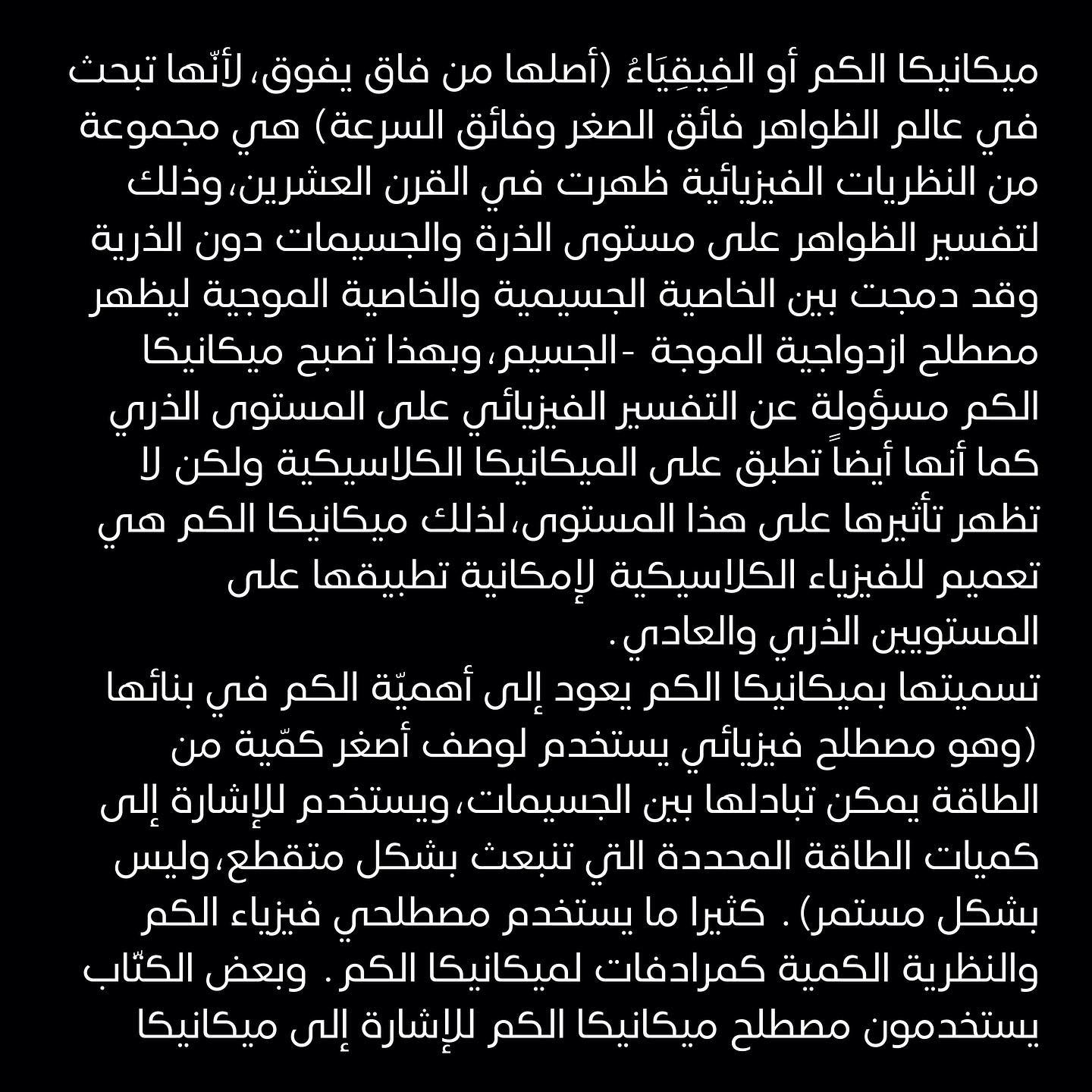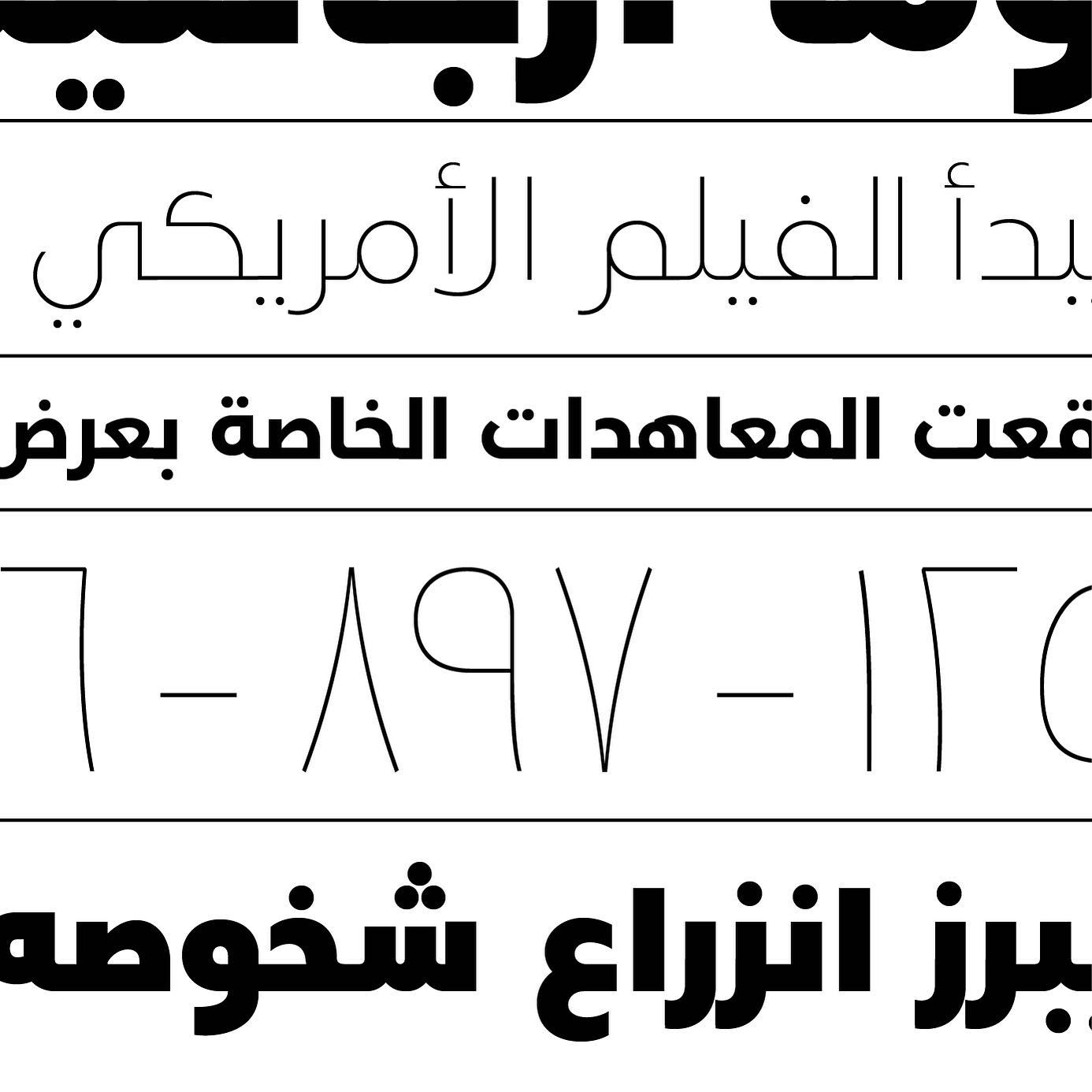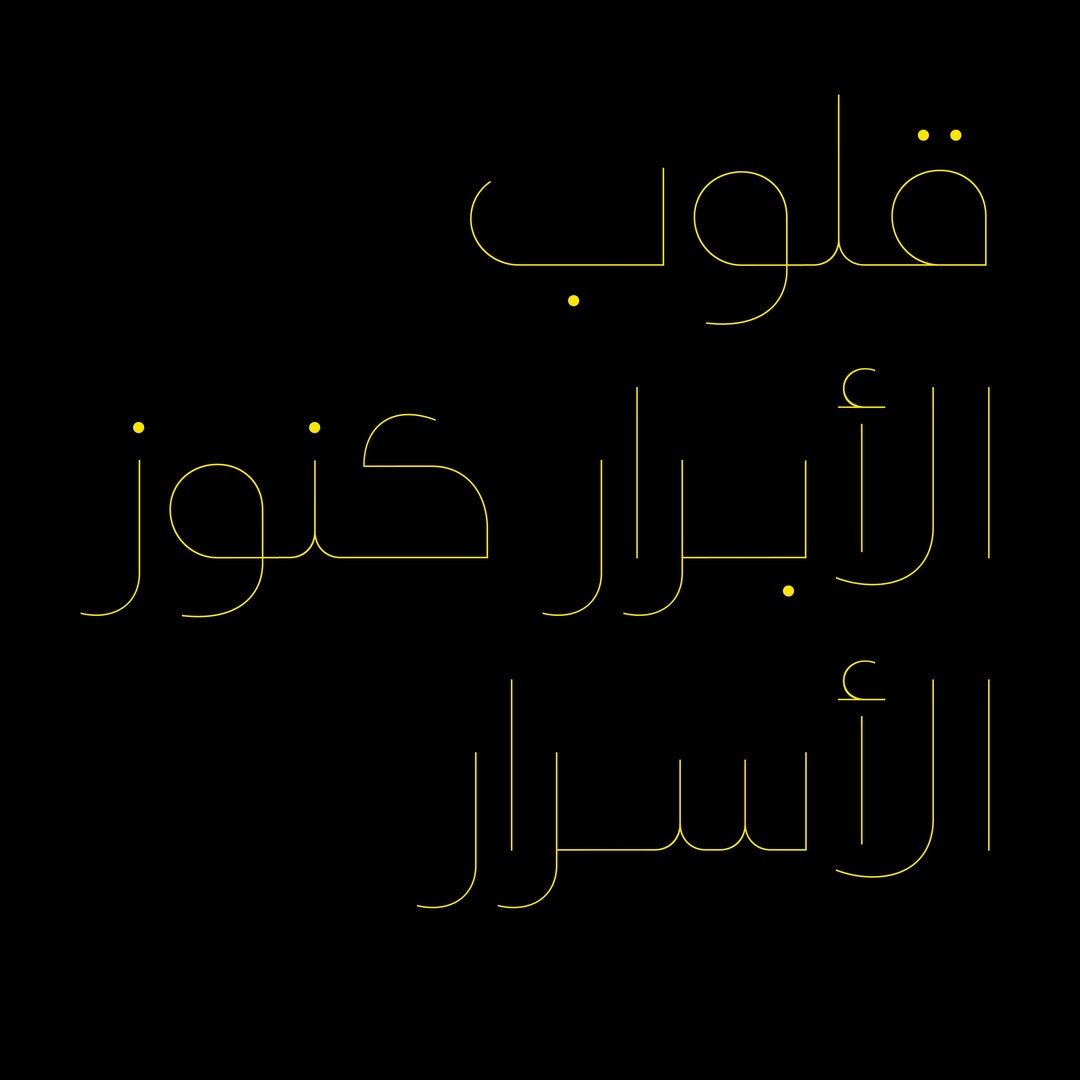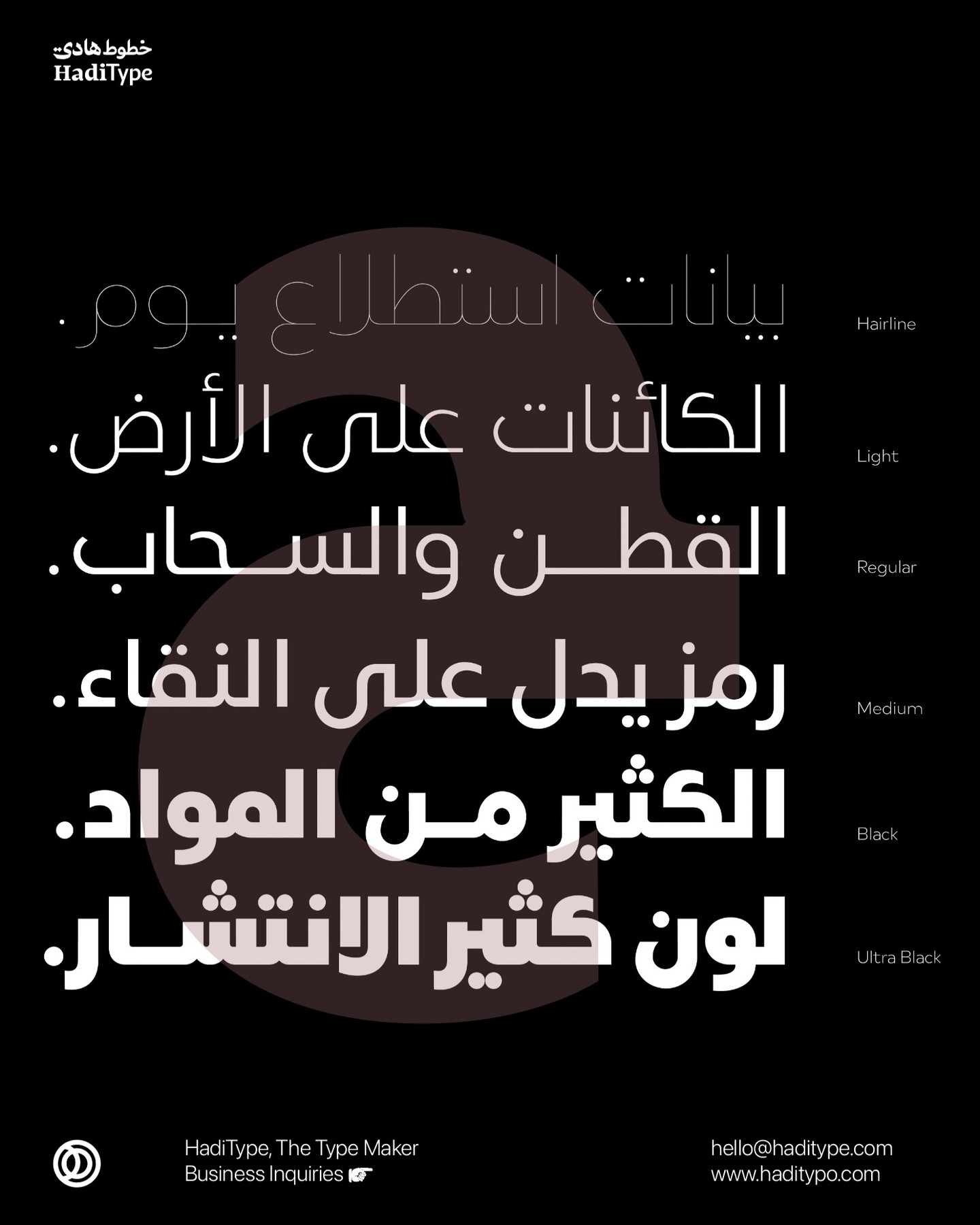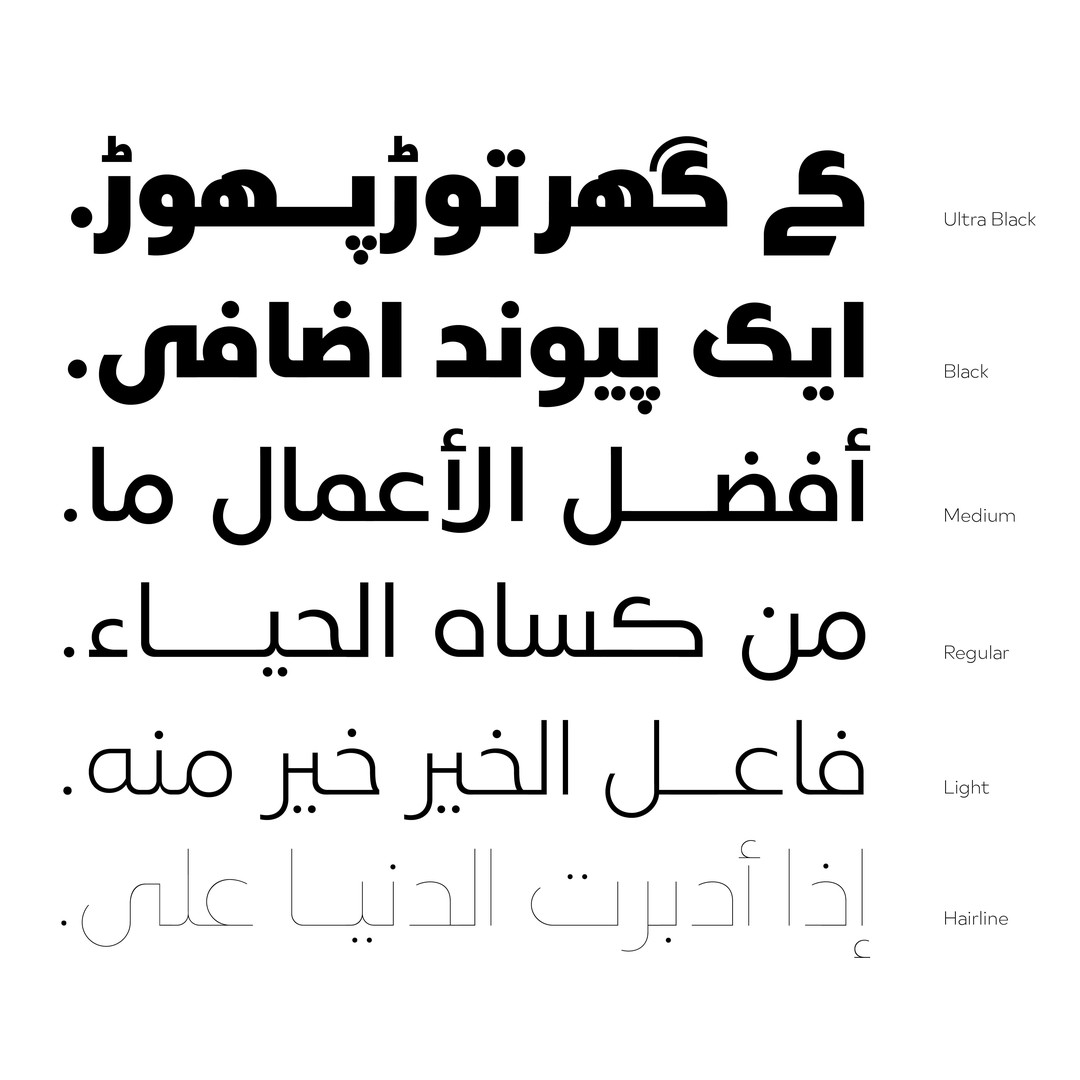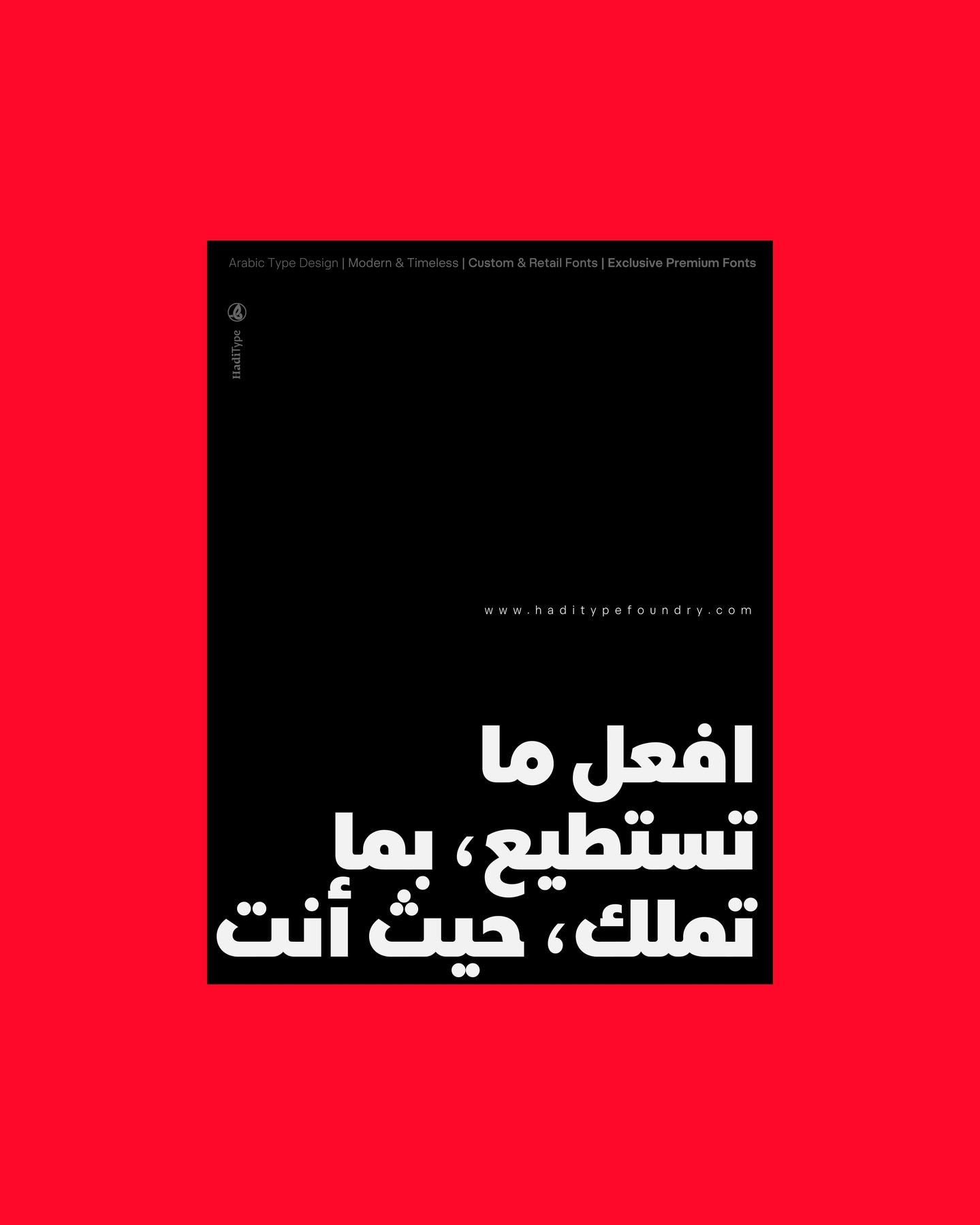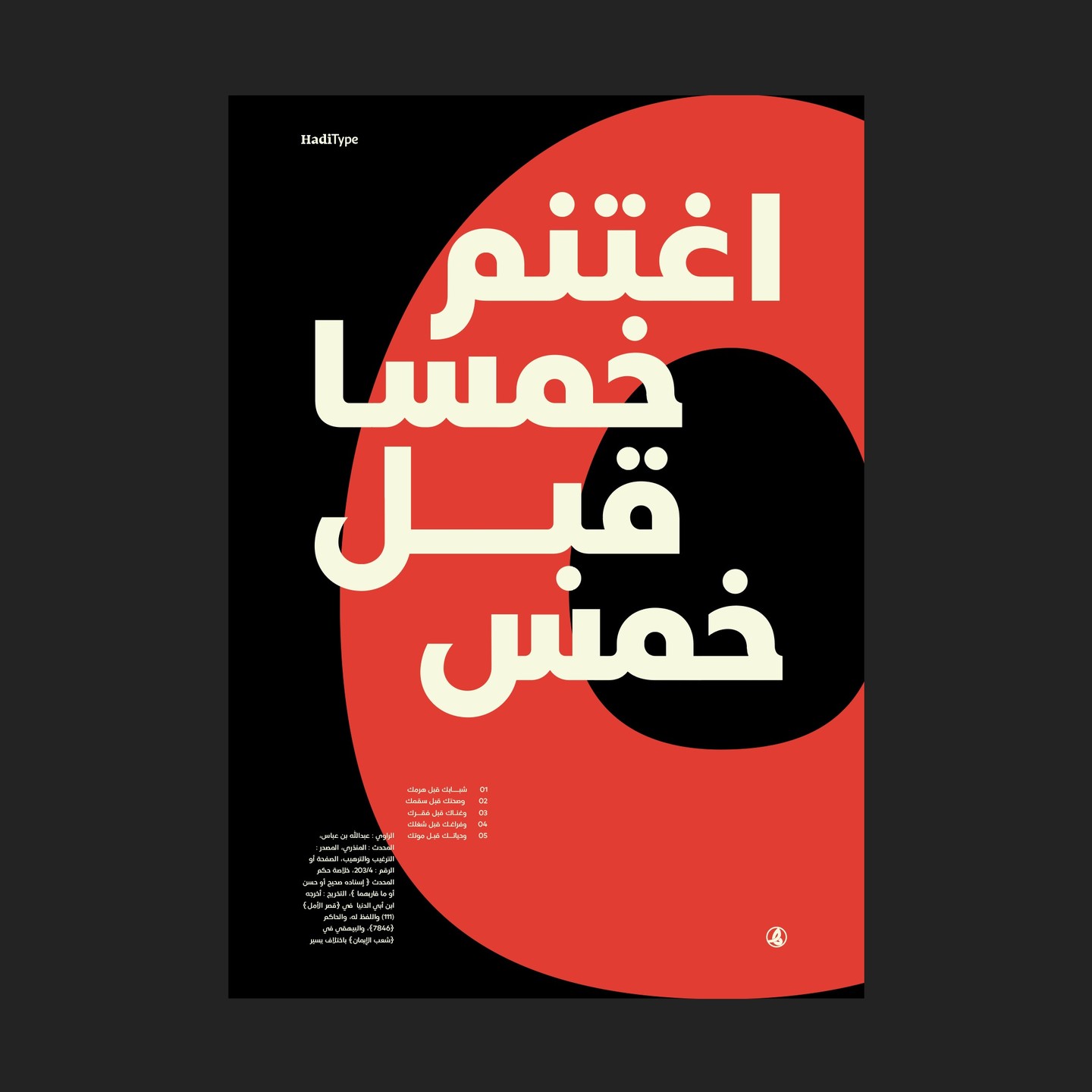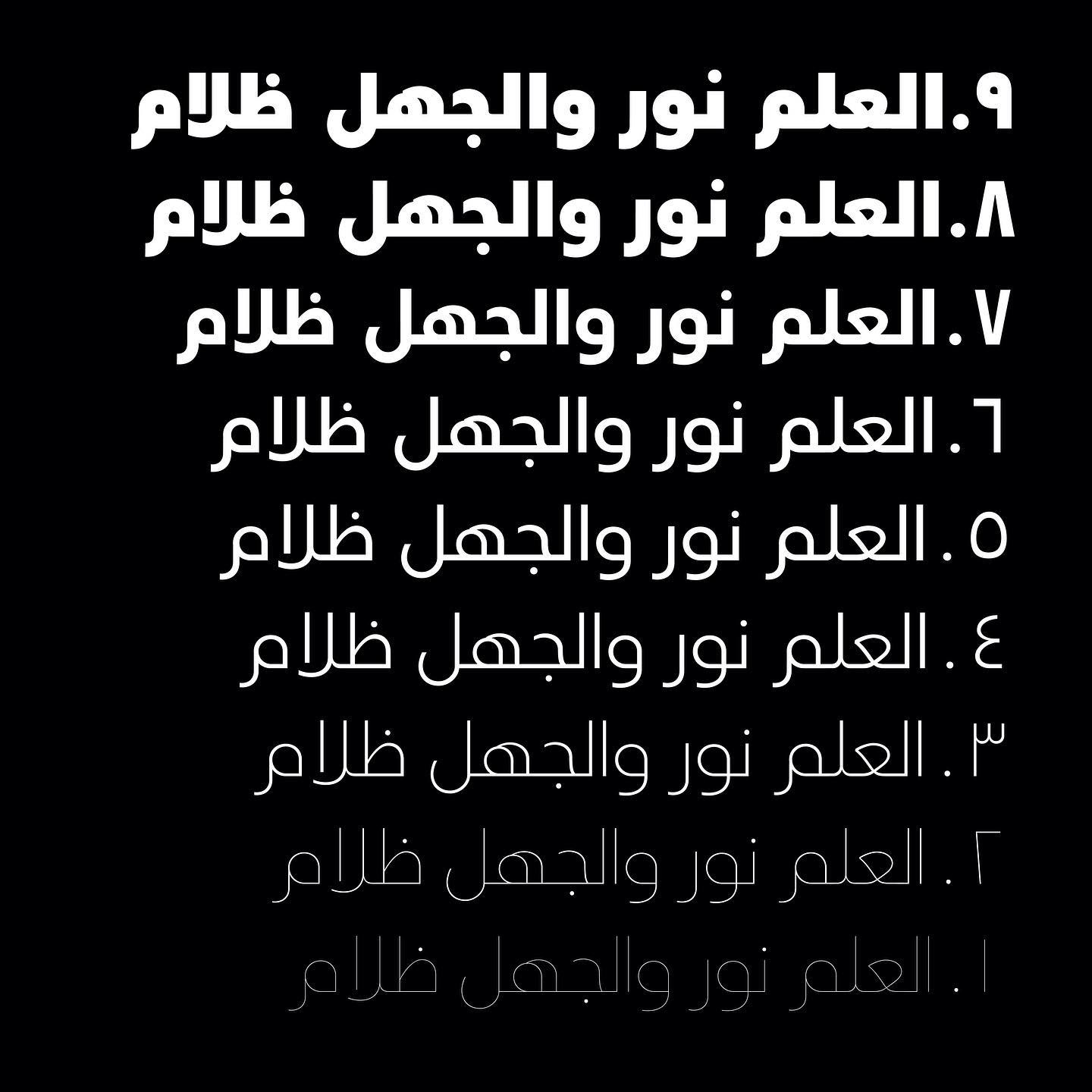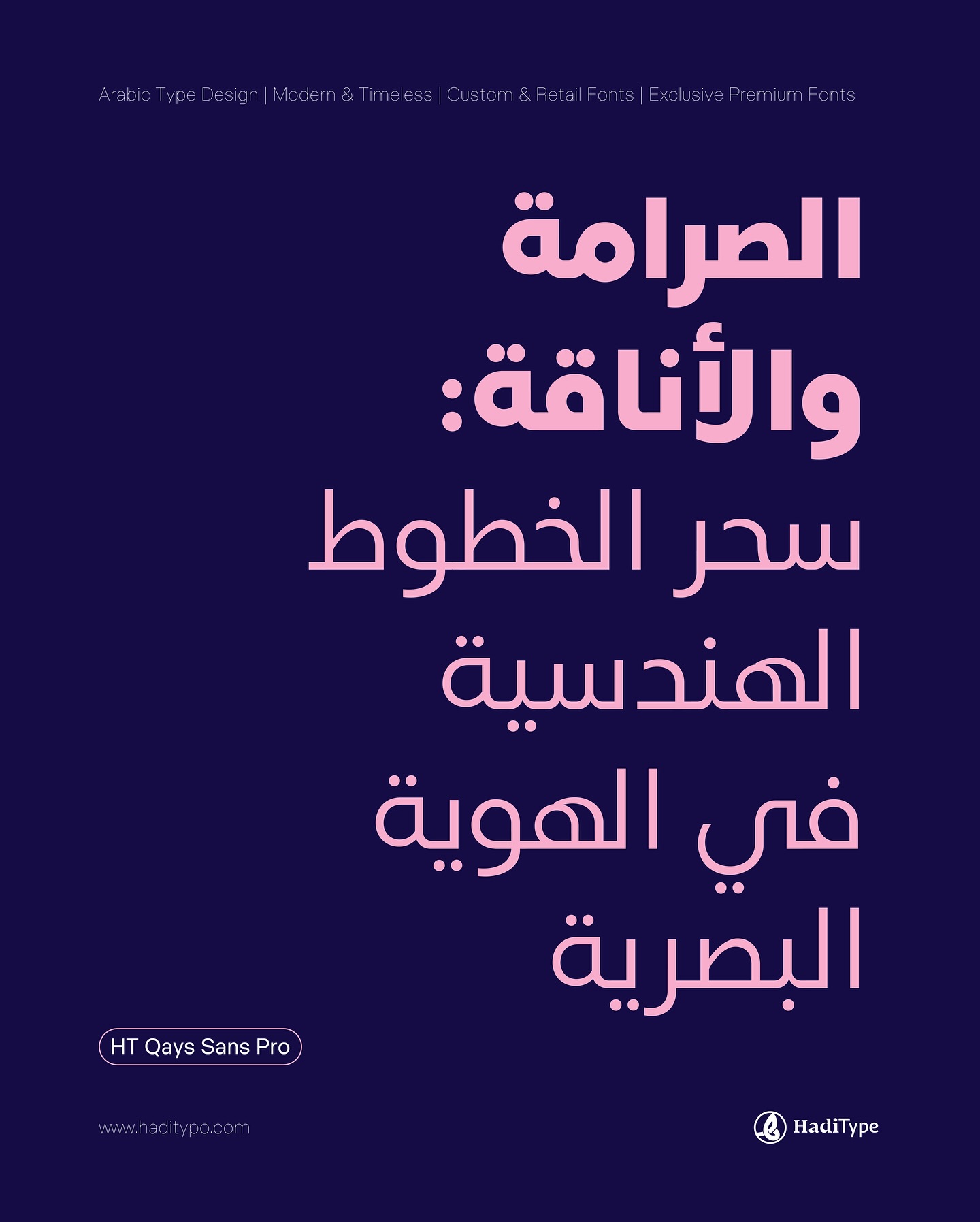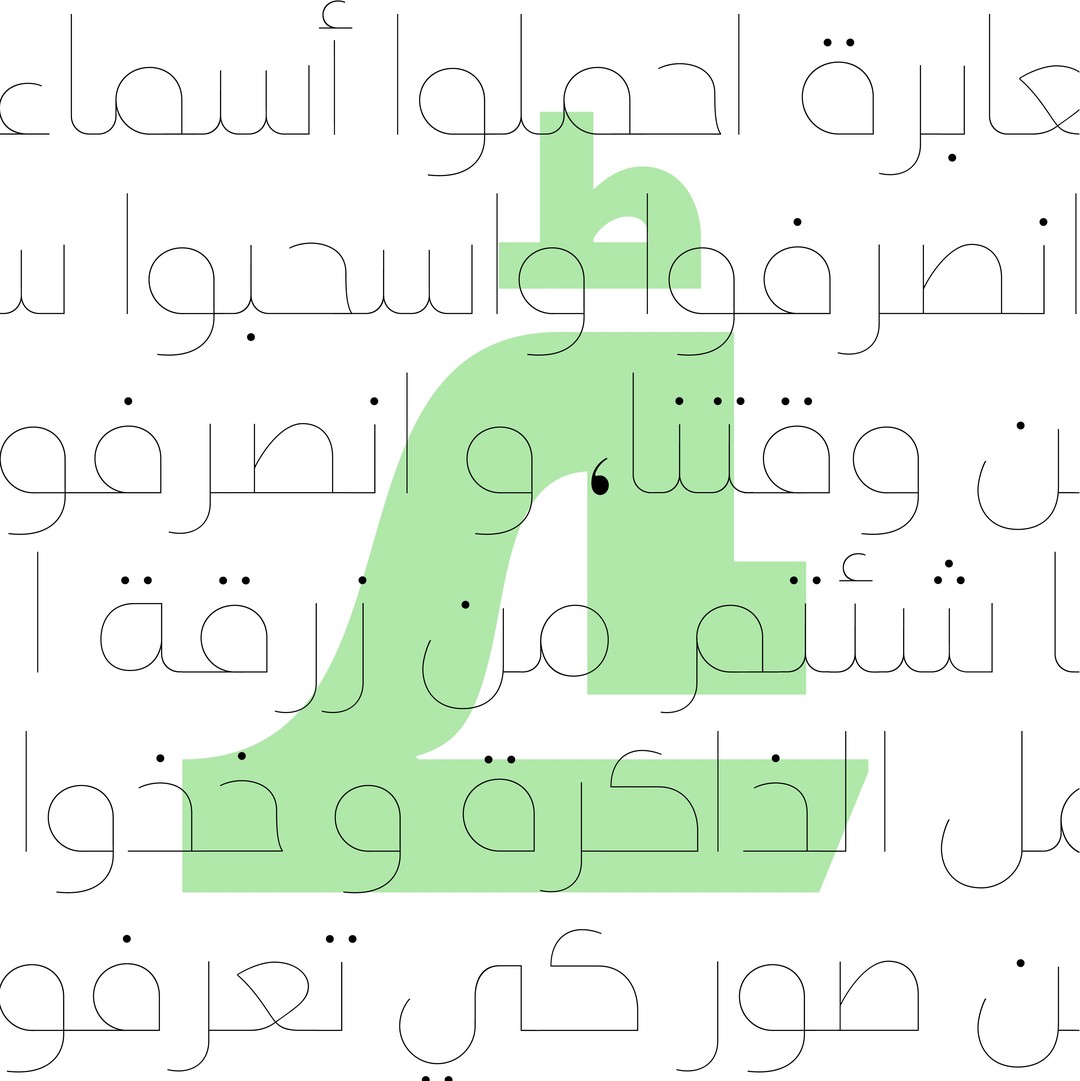
HT Qays Sans
Qays Sans Pro™ is a contemporary geometric Arabic font by Muhammed Hadi.
his first release was in 2018 and was support Arabic, Persian & Urdu only with 4 weights.
in 2020 Muhammed Hadi completely re-designed Qays from the ground up with 3 design axes & made a big expansion to support the full Unicode with extremely 9 different weights!
Qays Sans Pro™ Now provides full coverage of the Arab script, allows brands to maintain their visual identity, and communicates with a consistent voice tone with many famous Latin typefaces, offering linguistic versatility across environments – suited to branding and corporate identity, advertising, signage, wayfinding, print, and digital environments.